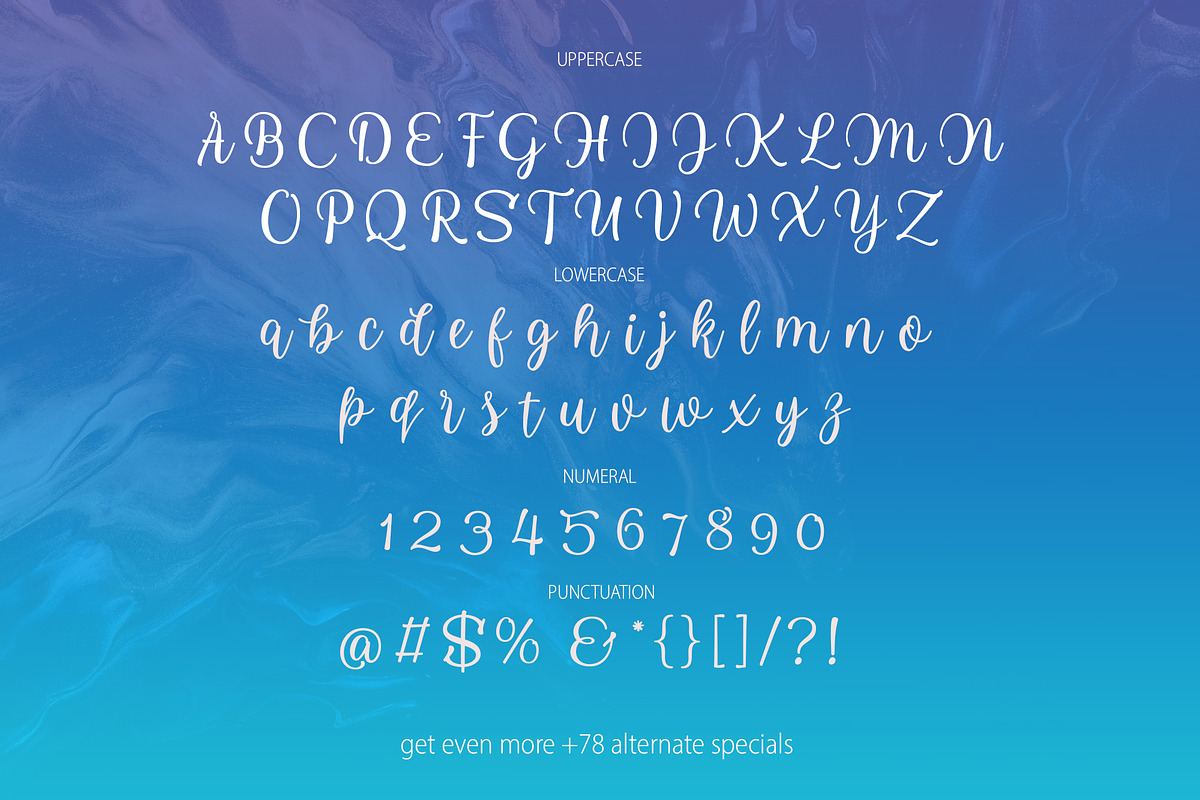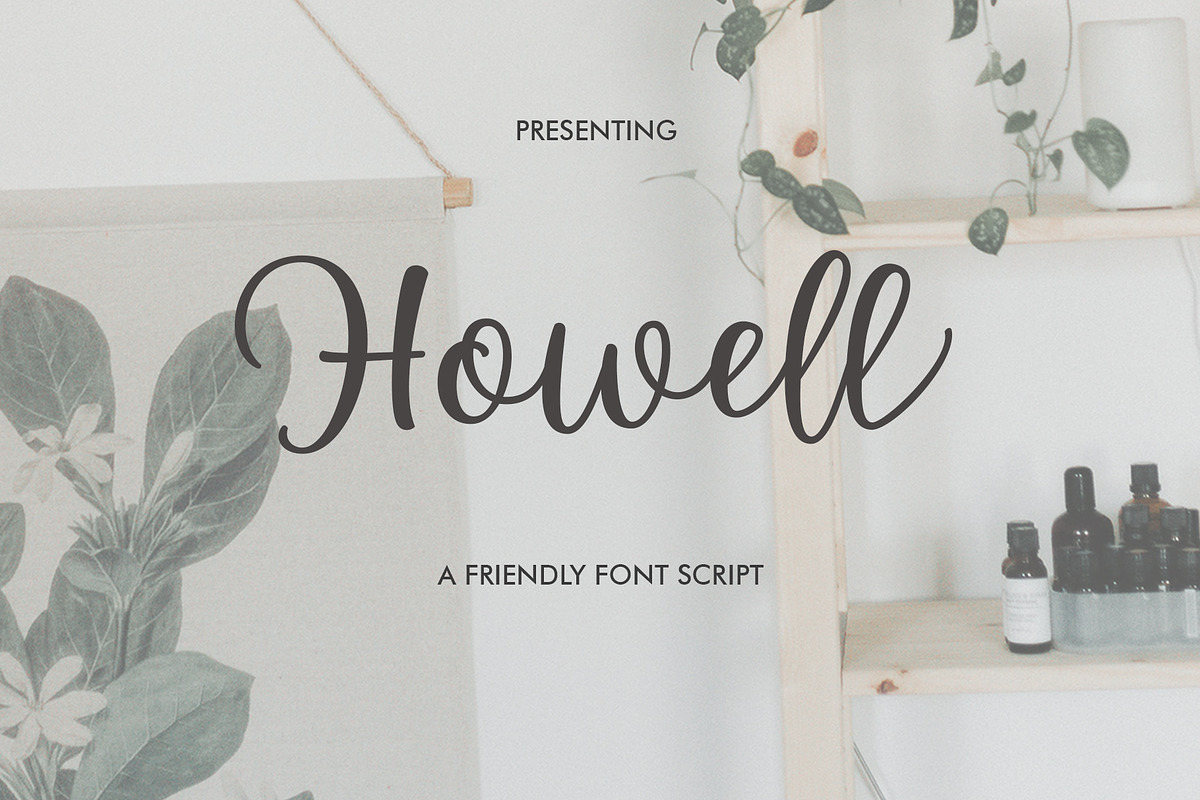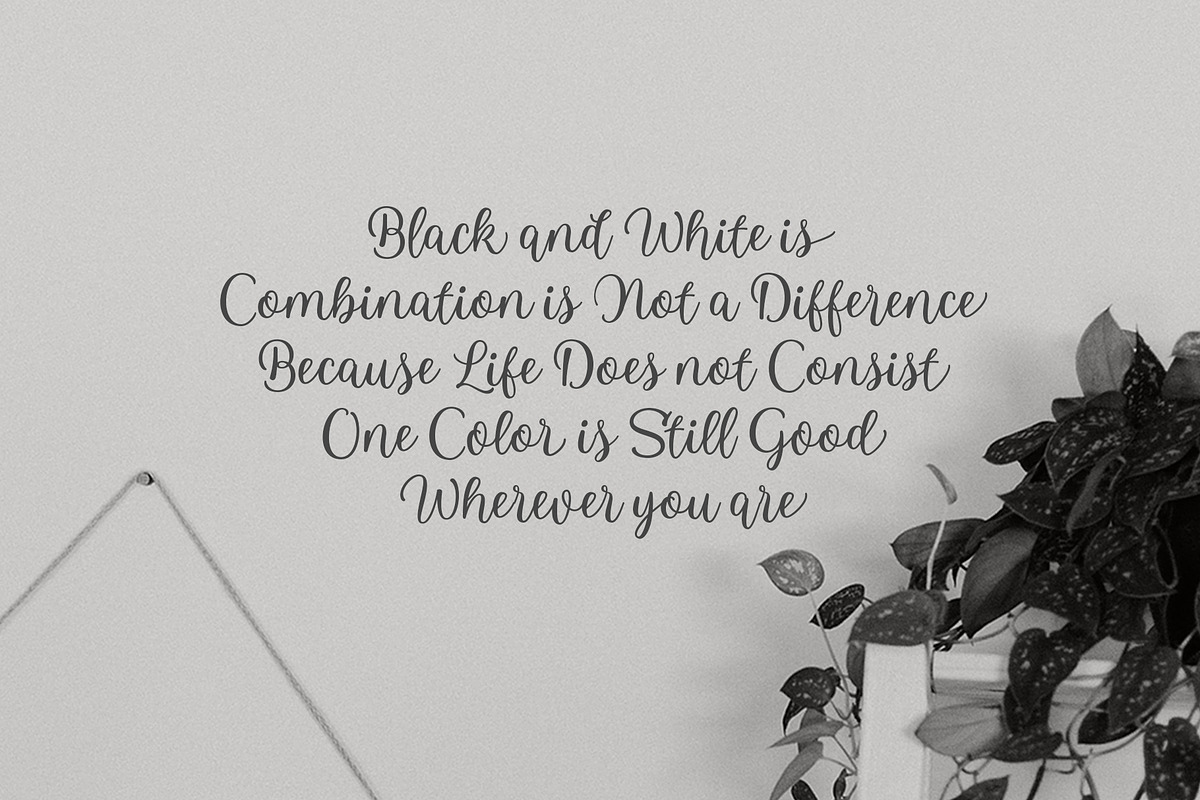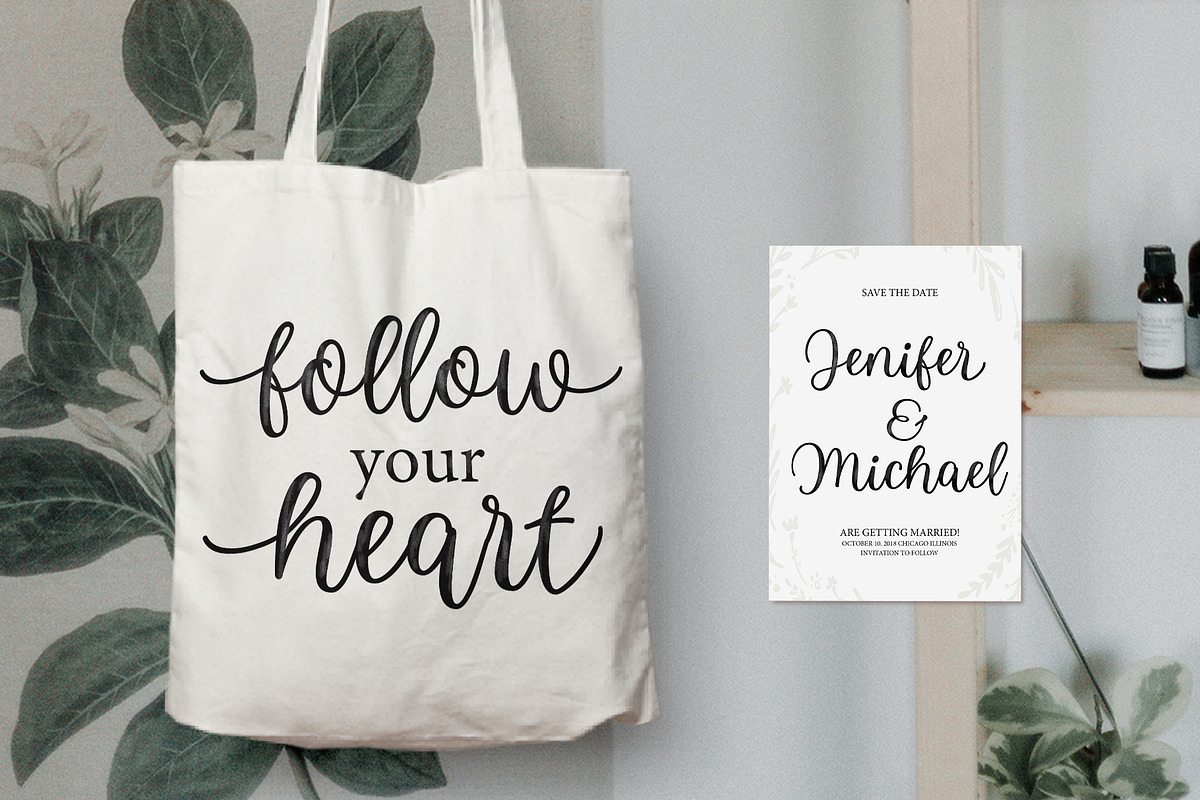
Howell Script
the new Howell Script font model you can get now! the script has been given a combination of fantasy and handwritten ink. This font will look beautiful in all designs, Wedding designs, branding materials, blog titles, quotes and invitations, business cards.